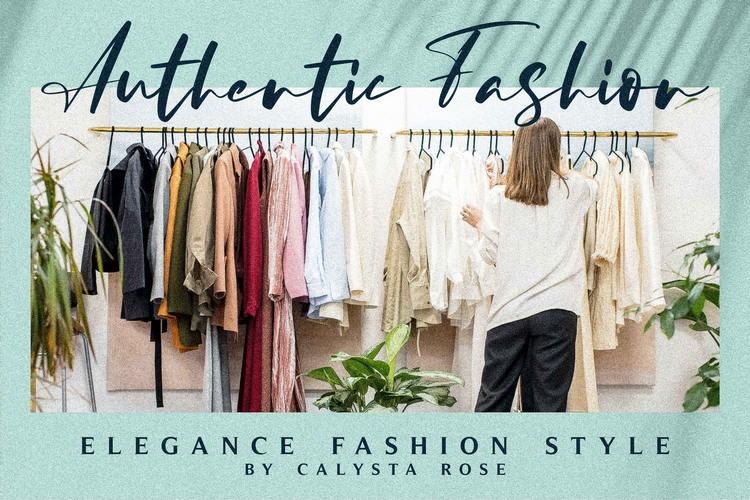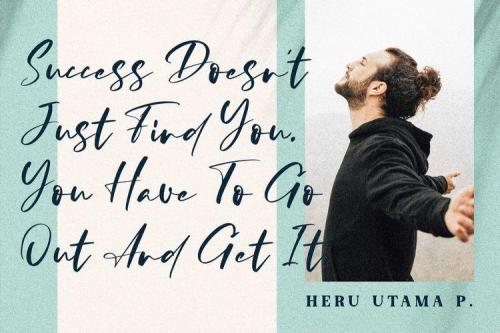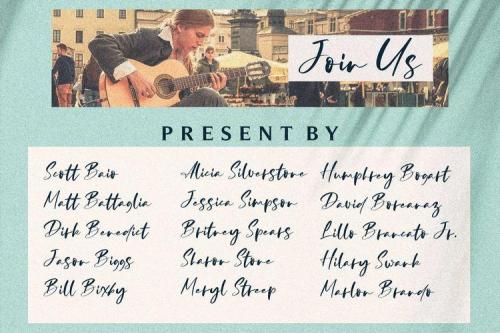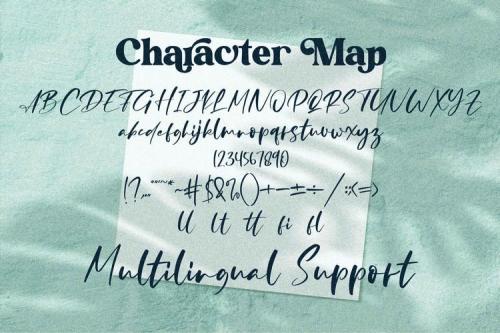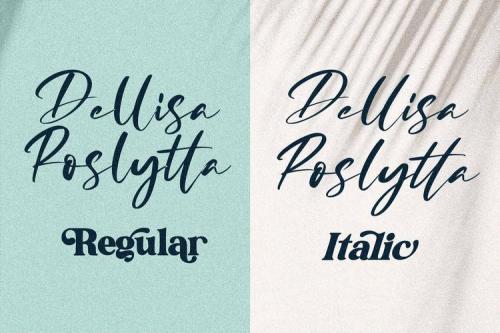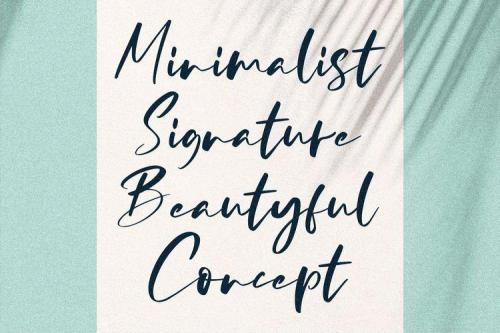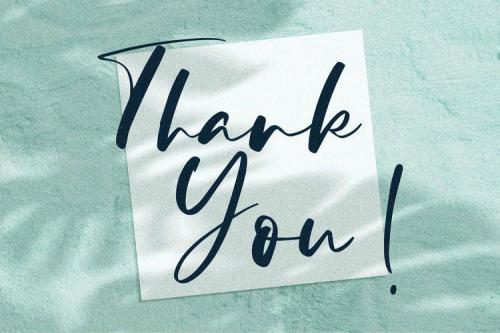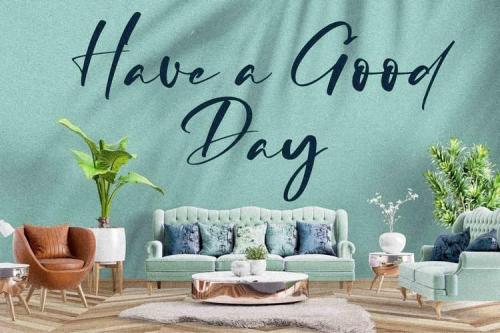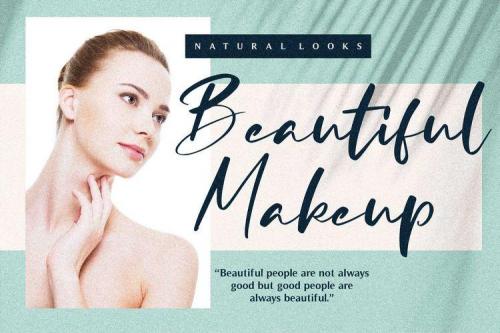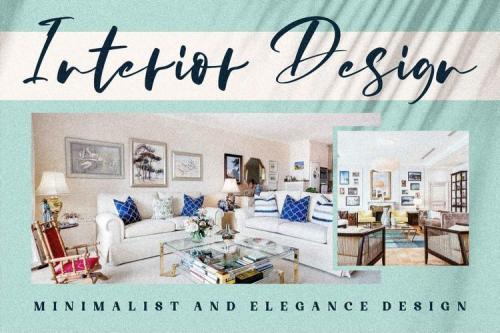
Dellisa Roslytta is a beautiful handwritten font. This font is suitable for any projects such as: logos, branding projects, homeware designs, product packaging, mugs, quotes, posters, shopping bags, t-shirts, book covers, name card, invitation cards, greeting cards, label, photography, watermark, special events, and all your other lovely projects that need a beautiful handwritten touch.